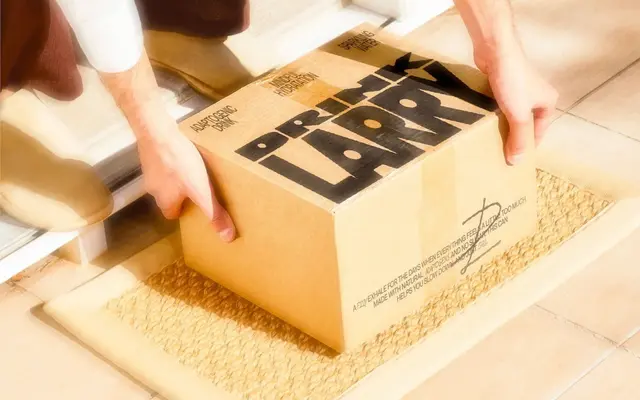
PP Neue Montreal
PP Neue Montreal specimen from Pangram Foundry
A grotesque with display spirit and tight kerning, in seven weights with italics and Cyrillic, pitched as a champion brand font.
PP Neue Montreal is a grotesque sans designed to act like a workhorse and a display face at once. Seven weights from Thin to Bold each have an italic, the kerning is slightly tighter than a default neutral grotesque, and the family carries Cyrillic support. The reference is Montreal as a design city, from Expo 67 to its current studio scene, and it has become one of the foundry's most-used identity faces.
Versatile grotesque with the spirit of a display font; seven weights upright and italic for 14 styles, slightly tighter kerning, Cyrillic support. Inspired by Montreal's design city status, from Expo 67 to its contemporary scene.